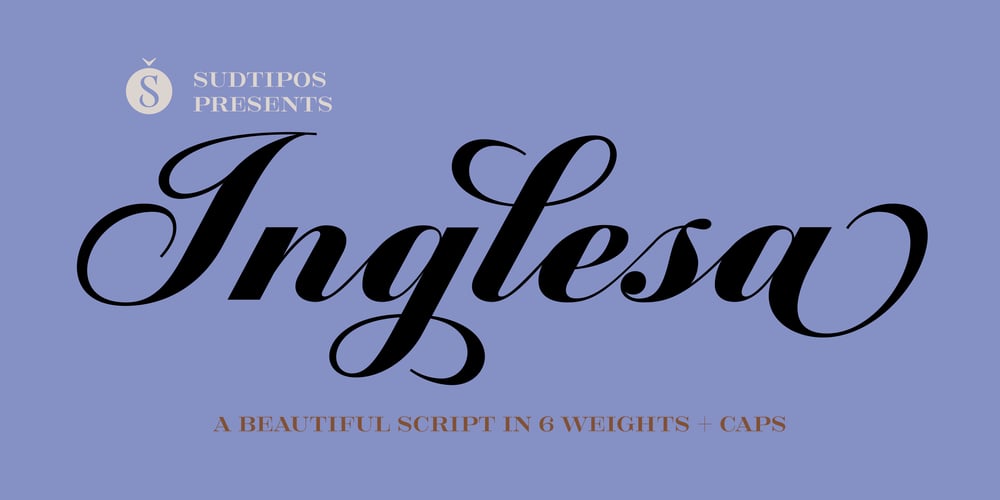
Inglesa Font Family was designed by Alejandro Paul and published by Sudtipos. Inglesa contains 14 styles and family package options. In the past, in Argentina, it was common to attend to calligraphy classes during the first years of high school. That experience left a mark on me that over the years mixed up with my practice as a type designer.“Caligrafía Inglesa” is, basically, the spanish translation for the copperplate calligraphic style. This was the initial idea that led the spirit of the project, but from the beginning it started to develop a typographic personality of its own.The new Inglesa font comes in 6 weights –from a skinny monolinear to an elegant black– with a companion set of roman caps. The harmony in both styles transmits as a result, a strong english spirit but with a fresh latin spice, assuring the perfect combination for any elegant design. Inglesa Script includes a vast amount of alternates, endings and swashes, allowing the designers to create infinite combinations making any design unique. The Inglesa family supports a wide range of Latin alphabet-based languages.